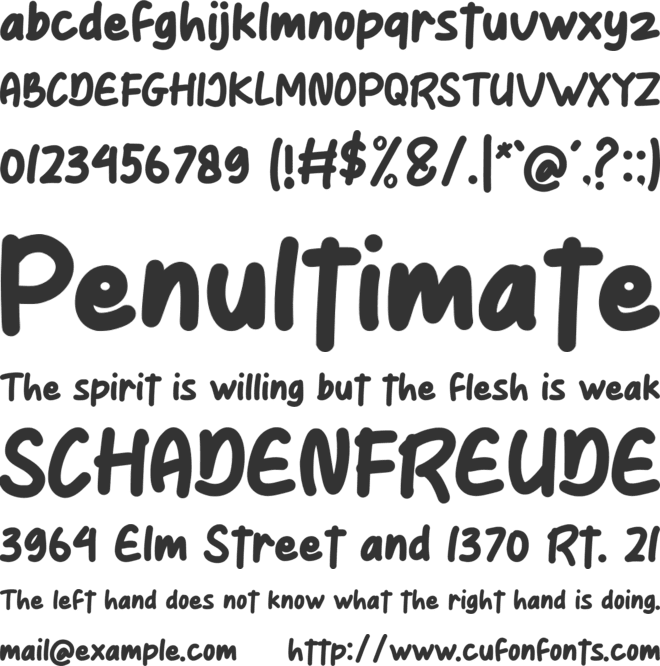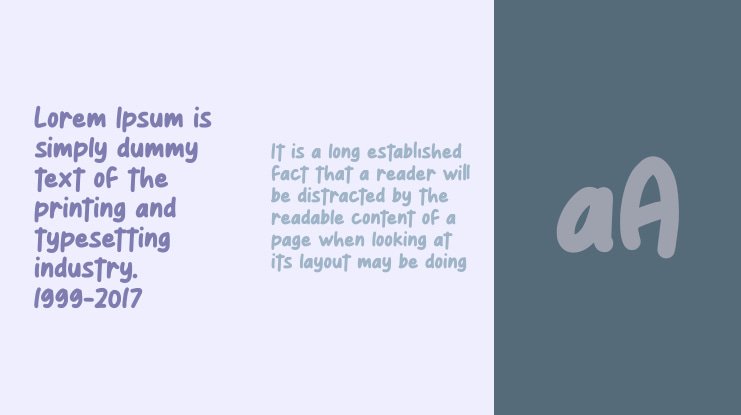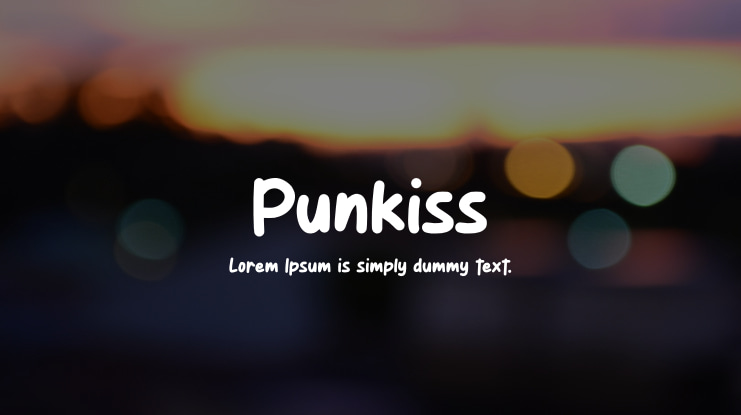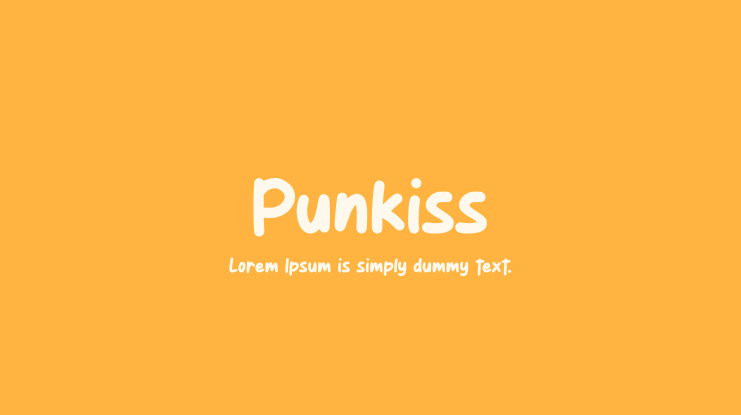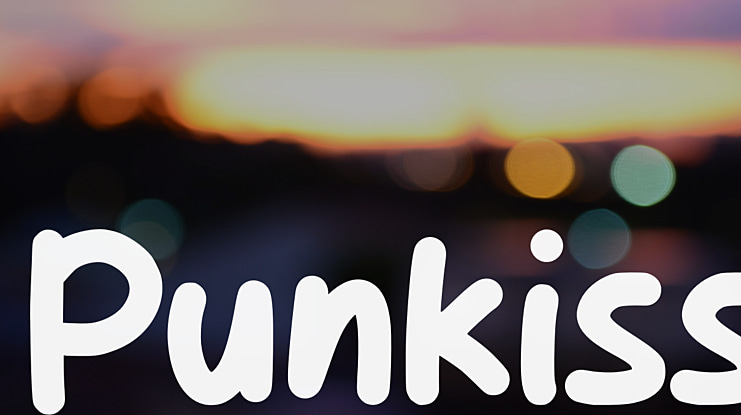
Punkiss Font
Punkiss is a cute, paint brushed handwritten font. This font is perfect for children themed designs, especially when combined with bright colors.